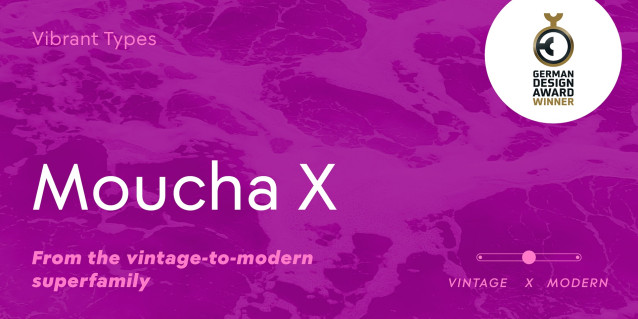
Moucha X Font Family
Moucha X Font Family is a geometric typeface family with a harmonious typesetting. Its normal-wide ‘n’ creates balanced character widths, giving it a timeless appeal. It is part of the Moucha vintage-to-modern superfamily, which received the German Design Award 2024 for its multitude of variants. It supports 890 Latin, Cyrillic, and Greek languages.
How the superfamily works: All variants share the same round characters while rectangle-based characters vary in width. Do you want Moucha Vintage’s rhythmic, classic look with a narrow ‘n’? Or do you prefer Moucha Modern’s homogenous contemporary aesthetic? Use Moucha X for a solid middle ground.